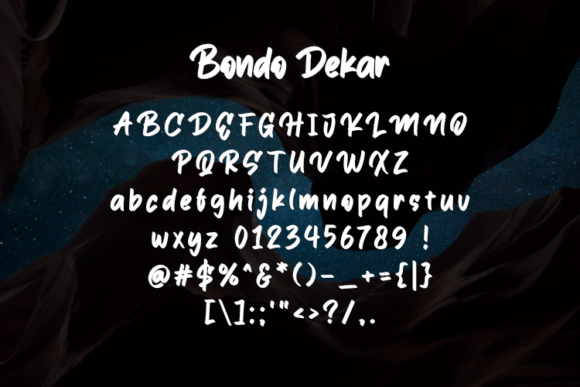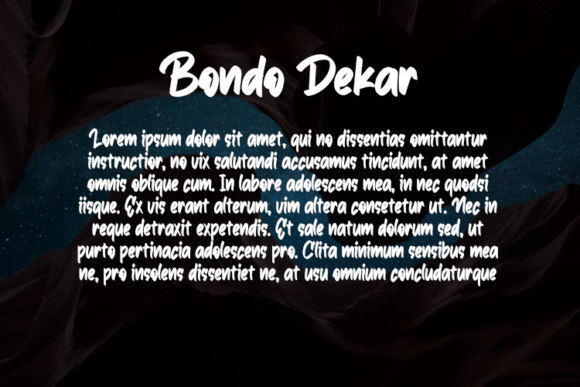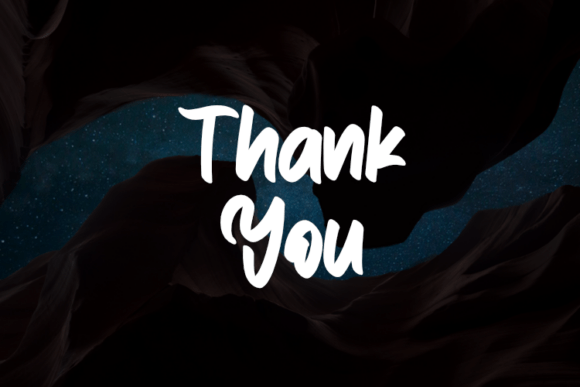
Unveiling Bondo Dekar: The Elegant Font for Creative Designs
In the world of design, typography plays a crucial role in conveying messages, expressing emotions, and creating visual identities. For designers and crafters, finding the perfect font can be a daunting task. However, if you’re looking for a versatile and adaptive font that adds a touch of elegance to your design palette, look no further than Bondo Dekar.
The Birth of Bondo Dekar
Bondo Dekar is a thoughtfully crafted font designed to cater to the diverse needs of designers and crafters. Its creation was inspired by the pursuit of perfection and a passion for typography. The result is a font that exudes sophistication, elegance, and versatility.
Key Features of Bondo Dekar
- Versatility: Bondo Dekar is designed to be adaptable, making it suitable for a wide range of design applications, from apparel and accessories to branding and marketing materials.
- Elegance: With its refined and sophisticated design, Bondo Dekar adds a touch of luxury to any design project.
Design Applications for Bondo Dekar
Bondo Dekar is an incredibly versatile font that can be used in a variety of design applications, including:
- Apparel Design: Create stunning t-shirts, hoodies, and other apparel with Bondo Dekar’s elegant and sophisticated design.
- Branding and Marketing: Establish a strong visual identity with Bondo Dekar’s refined and luxurious design.
- Stationery and Packaging: Add a touch of elegance to your stationery, packaging, and other printed materials with Bondo Dekar.
- Digital Design: Use Bondo Dekar in digital designs, such as social media graphics, blog posts, and website headers.
Benefits of Using Bondo Dekar
By incorporating Bondo Dekar into your design workflow, you’ll experience a range of benefits, including:
- Increased Creativity: Bondo Dekar’s versatility and elegance will inspire you to create unique and captivating designs.
- Improved Brand Consistency: Use Bondo Dekar across multiple design applications to establish a consistent visual identity.
- Enhanced Visual Appeal: Bondo Dekar’s sophisticated design will elevate the visual appeal of your designs, setting them apart from the competition.
In conclusion, Bondo Dekar is a versatile and elegant font that can elevate your design experience. With its sophisticated design, compatibility across all design software, and easy-to-use OTF file, Bondo Dekar is the perfect addition to your design palette. Whether you’re creating designs for apparel, branding, or digital applications, Bondo Dekar assures distinction and sophistication. Experience the charm of Bondo Dekar and redefine your design experience.